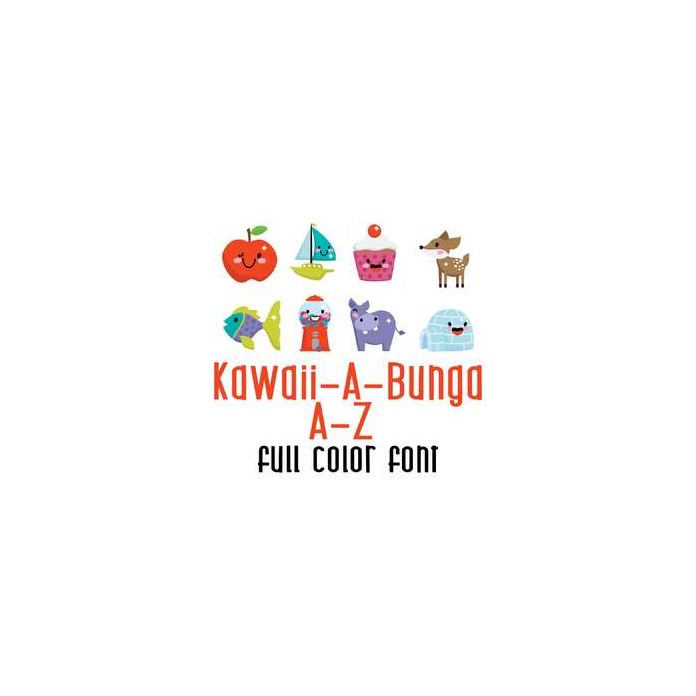
This adorable full color doodlebat font features adorable kawaii style imagery for each letter and sound of the alphabet. Includes 31 images for each letter, and additional images so you have both long and short sounds of the vowels . Perfect for teachers, classrooms, educators, cards, crafts, gifts, decor, scrap book pages, planner stickers and more!